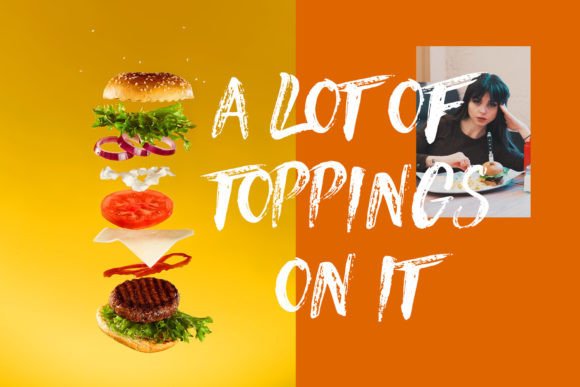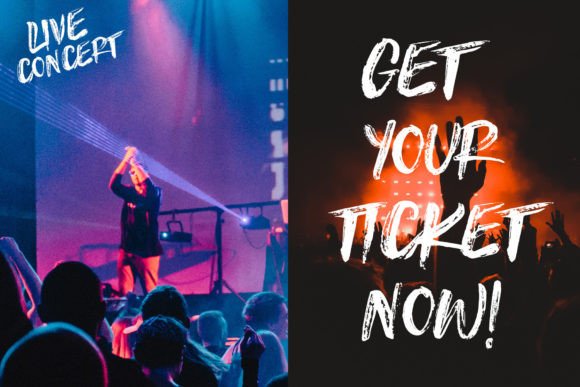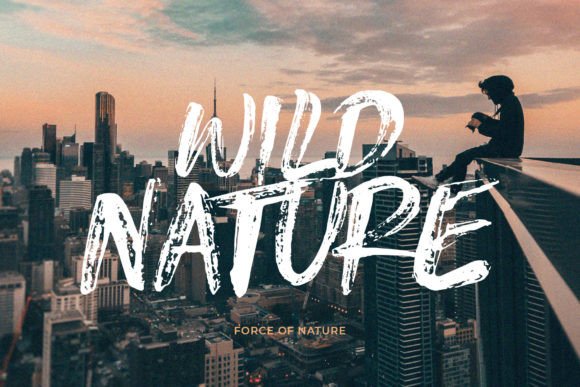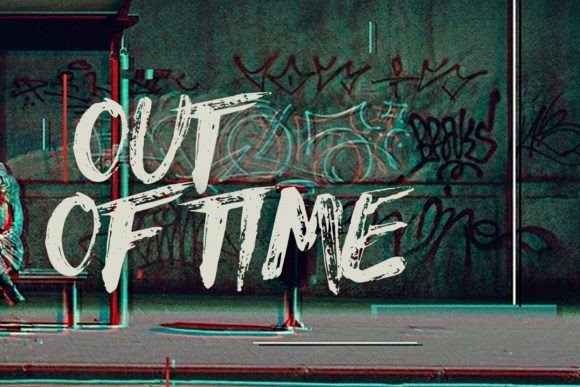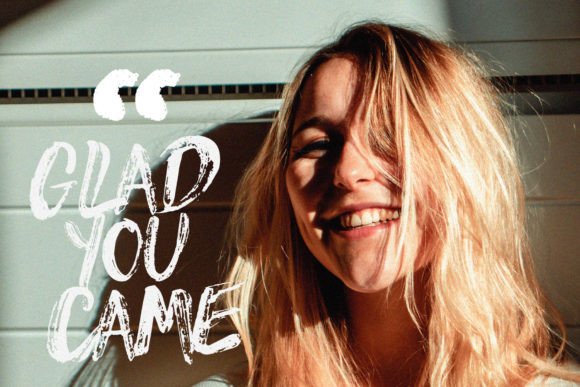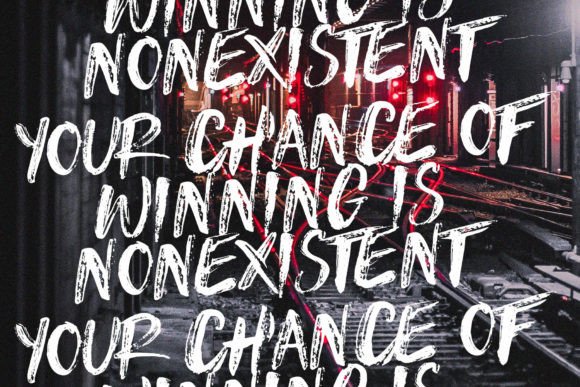
Introduction to Jenkine Font
Have you ever been working on a creative project, pouring your heart and soul into it, only to be stuck on finding the perfect font to give it that extra oomph? You’re not alone. Designers everywhere know the struggle of searching for that elusive perfect font that will elevate their design from good to great.
That’s where the Jenkine Font comes in – a beautiful, handwritten brush stroke font that’s sure to bring a touch of elegance and sophistication to any project. With its natural, casual feel, the Jenkine Font is perfect for designers looking to add a personal touch to their work.
Key Features of Jenkine Font
- High-quality design resource perfect for creative projects, offering a unique and elegant touch.
- Features a transparent background, allowing for seamless integration with various design elements and backgrounds.
- Comes in a range of sizes, from 12pt to 72pt, catering to different design requirements and applications.
- Designed with high resolution, ensuring crisp and clear typography, even at larger sizes or when zoomed in.
- Perfect for use in logos, branding materials, and other creative projects where a distinctive and sophisticated font is desired.
Honest Review: Jenkine Font
I recently stumbled upon the Jenkine Font while searching for a free design resource for a creative project. I was impressed by the font’s clean and modern design, making it perfect for a variety of applications.
Here are some of the key features of the Jenkine Font:
- Clean and modern design
However, I did notice a few limitations: ⚠️ The font is limited to a few styles, which may not be ideal for designers who need a wide range of options. Additionally, the font may not be compatible with all operating systems or devices.
Overall, I’m impressed with the Jenkine Font and would recommend it to designers who are looking for a high-quality, free design resource. With a little creativity, you can use this font to create some amazing designs.
Tips for Getting the Most Out of Jenkine Font
Use Jenkine Font in combination with other design elements to create visually appealing designs.
Experiment with different font sizes and colors to enhance your design.
Jenkine Font is suitable for various design projects, including logos, brochures, and infographics.
Its transparent background makes it ideal for designs that require a subtle text overlay.